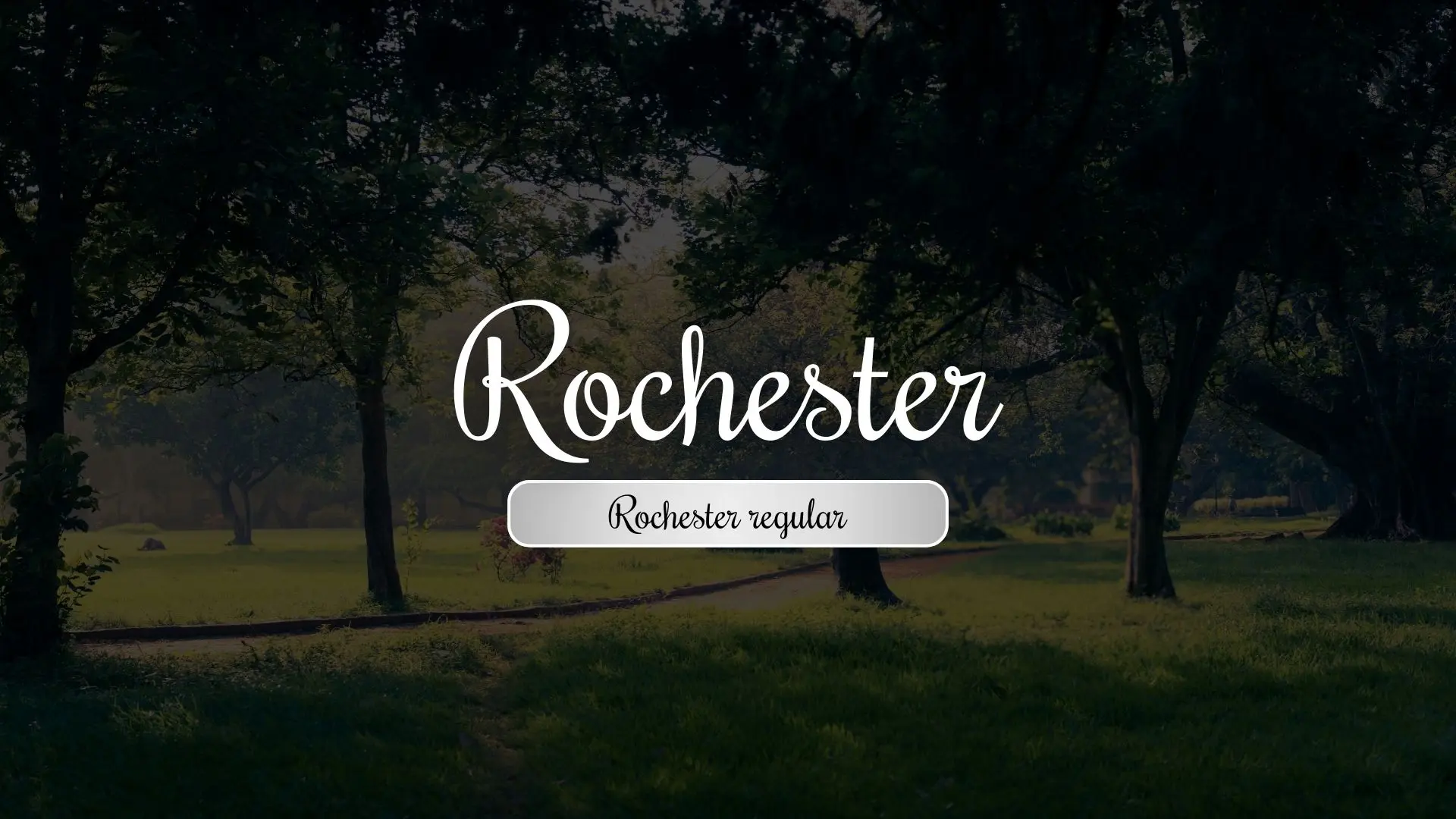
The font Rochester Regular, designed by Font Diner, falls under the Script category & Rochester font family. Its smooth, flowing letterforms make it a versatile choice for projects that require both elegance and readability. Rochester is particularly well-suited for Headlines and Titles, Wedding Invitations and Stationery and Logos and Branding. With its balance of simplicity and decorative appeal, this font brings a polished touch to both personal and professional designs.